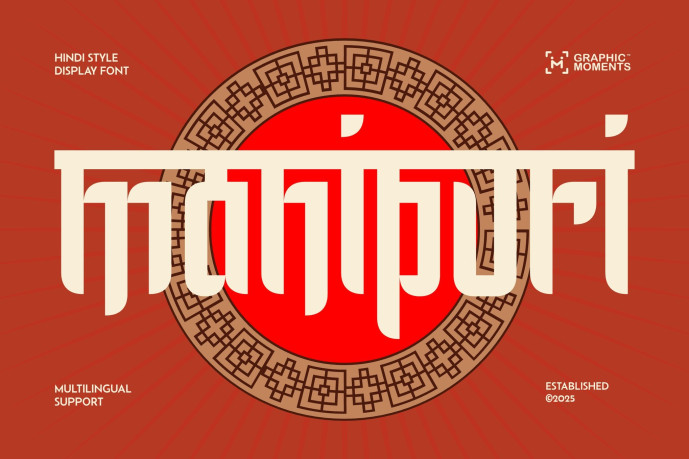
Manipuri – Hindi Font
Manipuri – Hindi Font is a bold and elegant Hindi-style display font that beautifully merges cultural depth with modern design. Inspired by the timeless artistry of Devanagari and Devnagri scripts, it draws from Hindi, Marathi, Gujarati, Malayalam, and Telugu influences to create a typeface rich in Indian character. Its geometric precision and refined curves make it perfect for editorial headlines, cultural branding, and festive designs that celebrate the visual rhythm of India. Manipuri embodies the harmony of tradition and innovation, carrying the expressive spirit of Bollywood and Indian typography into contemporary design.
Evoking the spiritual glow of Diwali and Deepavali, Manipuri captures the sacred elegance of Hindu and Sanskrit aesthetics. It’s a perfect choice for projects that embrace cultural storytelling, from Indian event posters to traditional product packaging and decorative art. With its strong personality and artistic flow, Manipuri brings authenticity, warmth, and festive sophistication—making every word a tribute to India’s heritage and celebration of life.
Timeless Hindi essence, reimagined for today